21 Modern Serif Fonts to Help You Impress Your Audience
Looking for a modern serif font for your design project? Here are 21 gorgeous fonts to choose from!
What is a serif font again? Unlike sans serif fonts, serif typefaces have small strokes at the edge of a large stroke. Some well known serif fonts are Times New Roman, Baskerville, Bodoni, and Garamond.
Serif typefaces are known for their stylishness, class and the traditional, dependable character they infuse in designs. But that doesn’t mean that there aren’t modern fonts in the serif style!
Whether you want one for body text, headlines, or as a web font, this selection will offer you plenty of options.
1. Valky Modern (purchase only)
Valky is a stylish and vintage serif typeface with a retro vibe, and beautiful ligatures. Additionally, it has plenty of glyphs, ornaments and multilingual support. It would make a great font for posters, beauty packaging and fashion branding.
2. Grandeur (purchase only)
True to its name, this stylized and highly detailed font is quirky and slightly psychedelic, but mainly based on the baroque aesthetic.
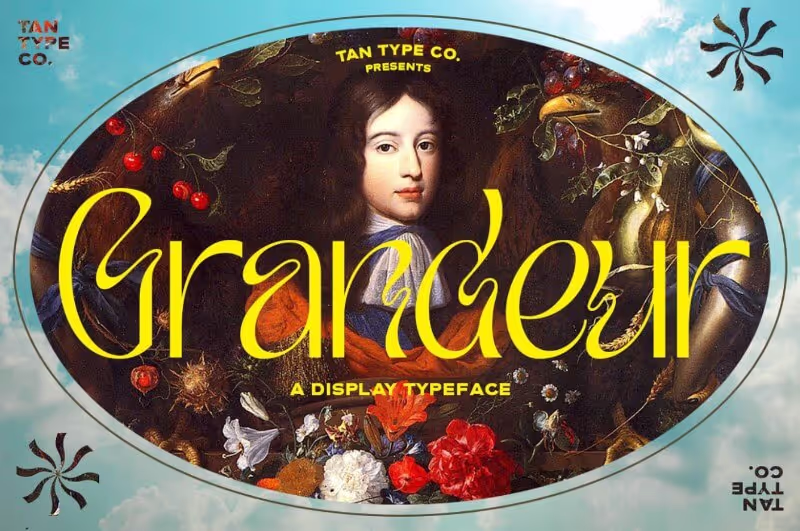
3. Moustique (free for personal use)
This elegant font is inspired by luxury design and is characterized by the high contrast between thick and thin lines.
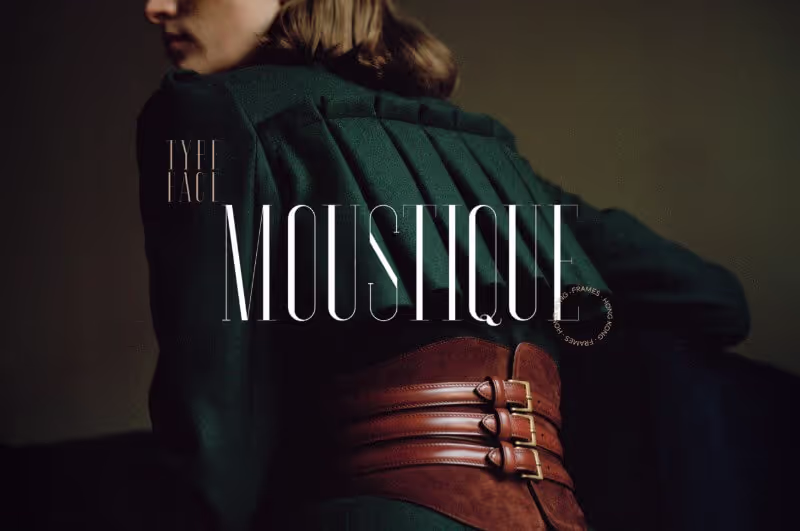
4. Bosch (free for personal use)
This quirky and unusual display font is inspired by Hieronymus Bosch, a Dutch 15th-century painter and one of the most prominent artists of the Northern Renaissance. It is available in the Greek and Latin alphabet, and its unusual forms are inspired by religious scripts.
5. Style Clubs (purchase only)
Style Clubs is closer to a classic serif in its aesthetic, but the simplicity and casual look make it a modern solution. It comes in only one weight, and it’s slightly Italic.
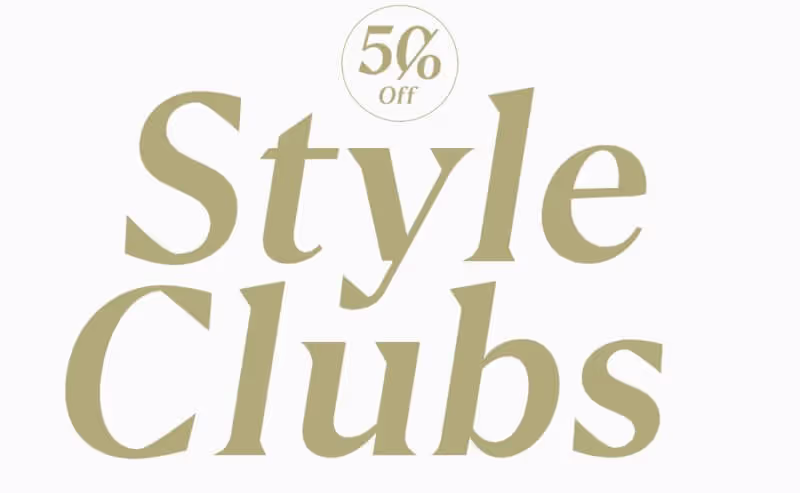
6. Astoria (purchase only)
This gorgeous and unusual font created by the TanType studio is groovy and decorative, and a strong base to design a creative poster, packaging, or branding identity.
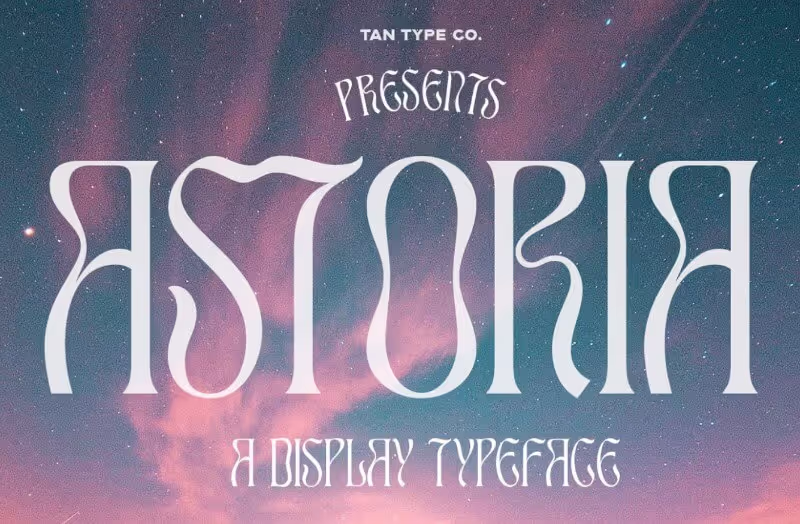
7. Bright (purchase only)
If you’re a fan of the 60s and 70s type design, this is the font for you. Its stylish and retro look will make any design charming and hip.
8. Branic (free for commercial use)
Luxury in the form of letters. Inspired by Art Deco, very classic and modern, this serif font is the ideal choice for fashion branding and packaging.
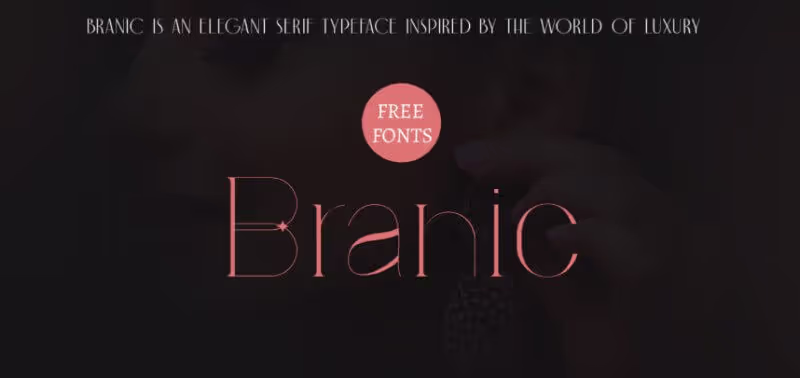
9. Finches (free for personal use)
This gorgeous italic serif font has sleek and thin ligatures, as well as organic curvatures in the letters. It’s perfect for website design, as it’s legible and not too decorative.
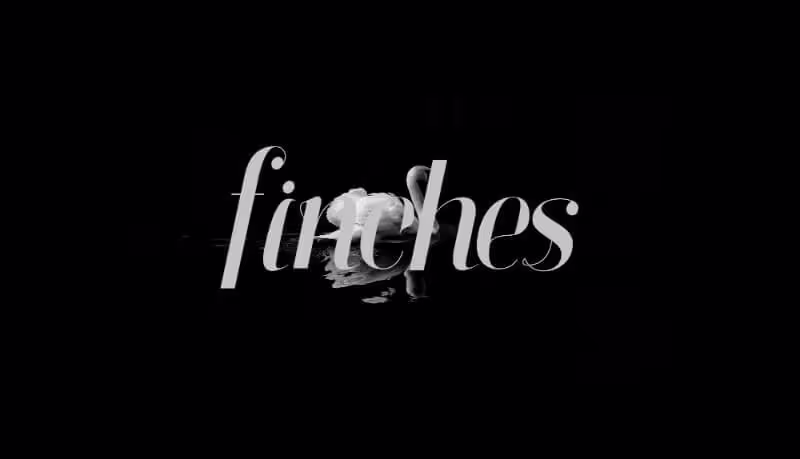
10. Stigma (purchase only)
Stigma typeface is a versatile, modern and classy serif font, perfect for displays, headlines and big titles.
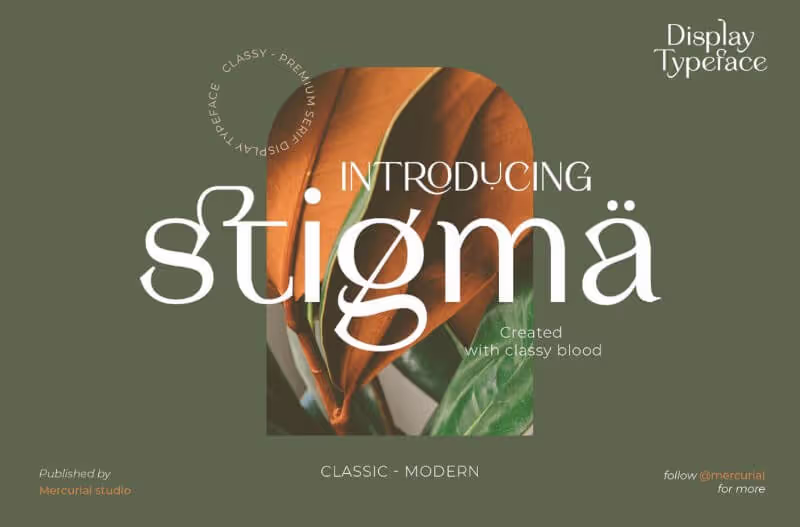
11. Grange (purchase only)
This premium serif has super-thin lines and curved ligatures, as well as additional ornaments that make it utterly charming.
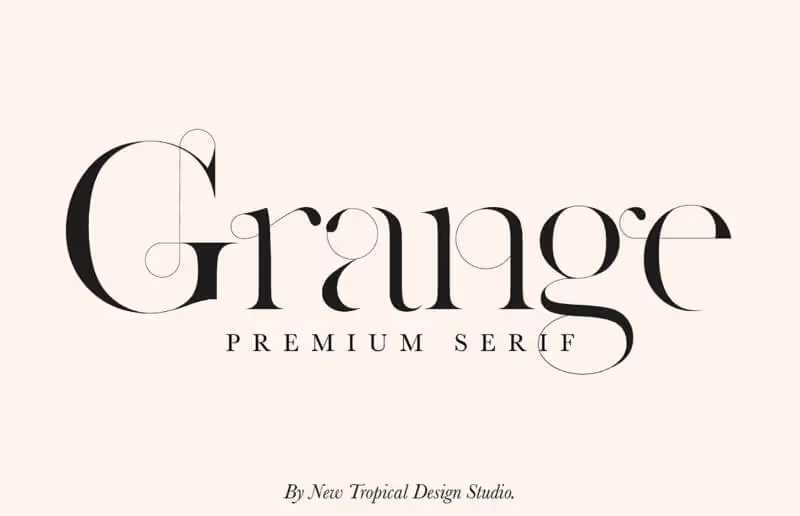
12. Klose (purchase only)
This cartoonish and funky font family is a slab serif font that will add some pizzazz to a retro design and can be used in 75 languages and scripts.
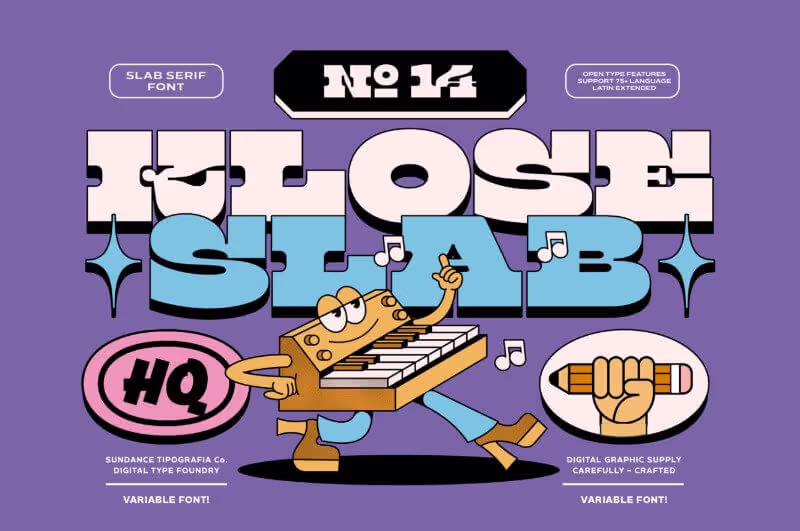
13. Becoming (purchase only)
Becoming is a transitional serif typeface whose most noticeable trait is a contrast of bold curves and sharp straight lines.
14. Elika Gorica (purchase only)
This luscious, well-designed and legible font comes with a vast number of alternate glyphs and ligatures, so it’s the perfect modern sans serif typeface if you need more than just Latin lettering.
15. Qaligo (free for personal use)
Sweet, decorative and feminine, are three things that Qaligo definitely is. The cute ornamental stars come in small sizes, so they won’t overpower the balance of this well-designed typeface.
16. Aremia (purchase only)
Aremia is a neo-grotesque serif typeface inspired by the late Renaissance-era type and balanced with a contemporary, future-facing tone.
17. Blake (purchase only)
Rarely will you find a display font as unique as Blake. It’s very visually dynamic and impressive, but clear and legible.
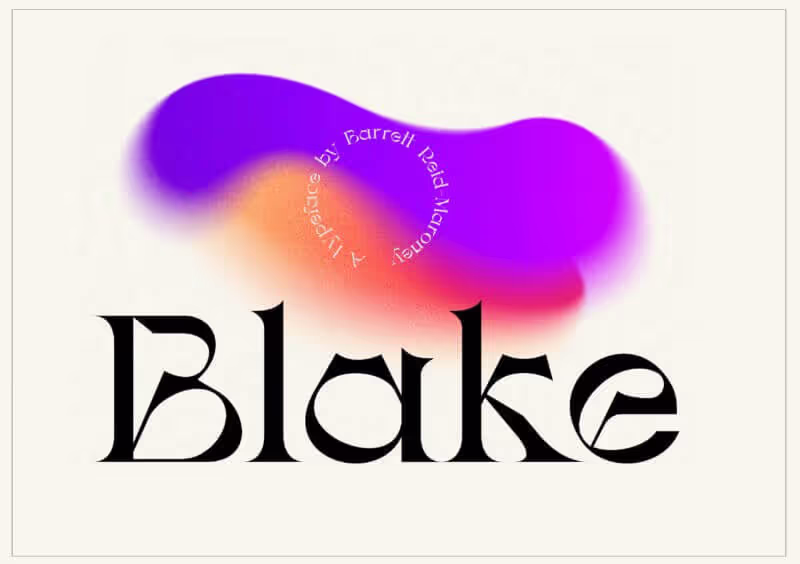
18. Kindred (purchase only)
Kindred is a reverse-contrast display type. Personally, it reminds me of the Summer of Love, hippie aesthetic and the reoccurring retro look we see become popular now and again.
19. Milk and Balls (free for personal use)
Cute, legible, a little bit cartoonish. This font is perfect for youthful packaging and a vibrant look of any design you are creating.
20. Beale (purchase only)
How about a 70s game-show vibe? Beale is inspired by the lettering on blues and rock n roll records from studios like Sun Stax Records. It is in all uppercase letters.
21. Cinema Paradiso (purchase only)
Maybe it’s the fact that this font carries the name of one of my favorite films, but it looks gorgeous and fitting for any type of design. It carries some inspiration from the Art Nouveau art wave.